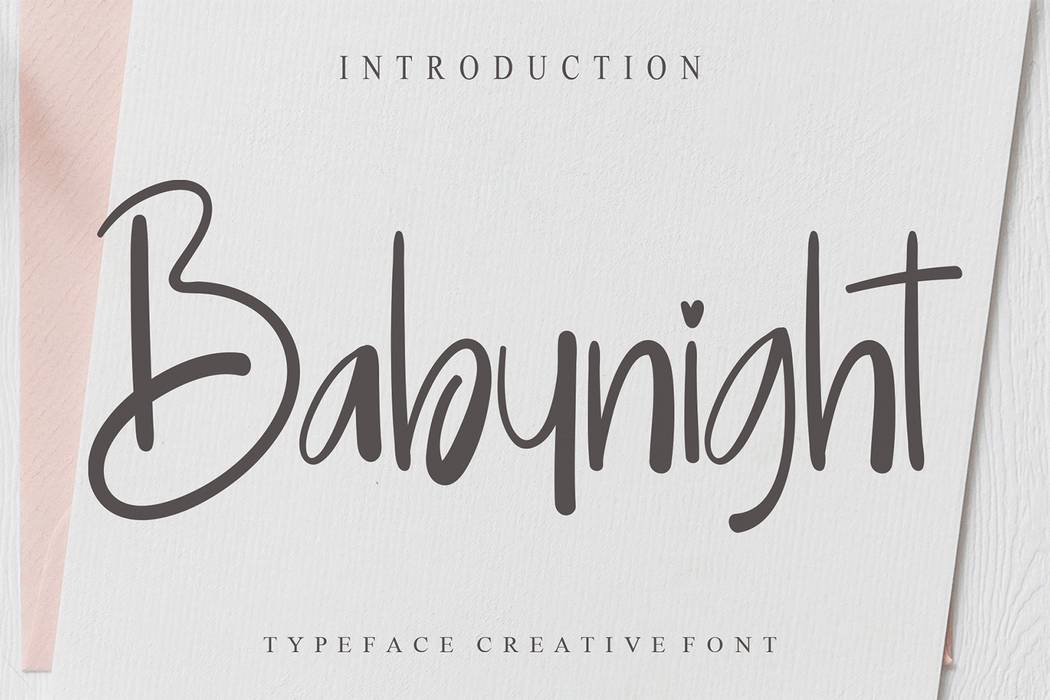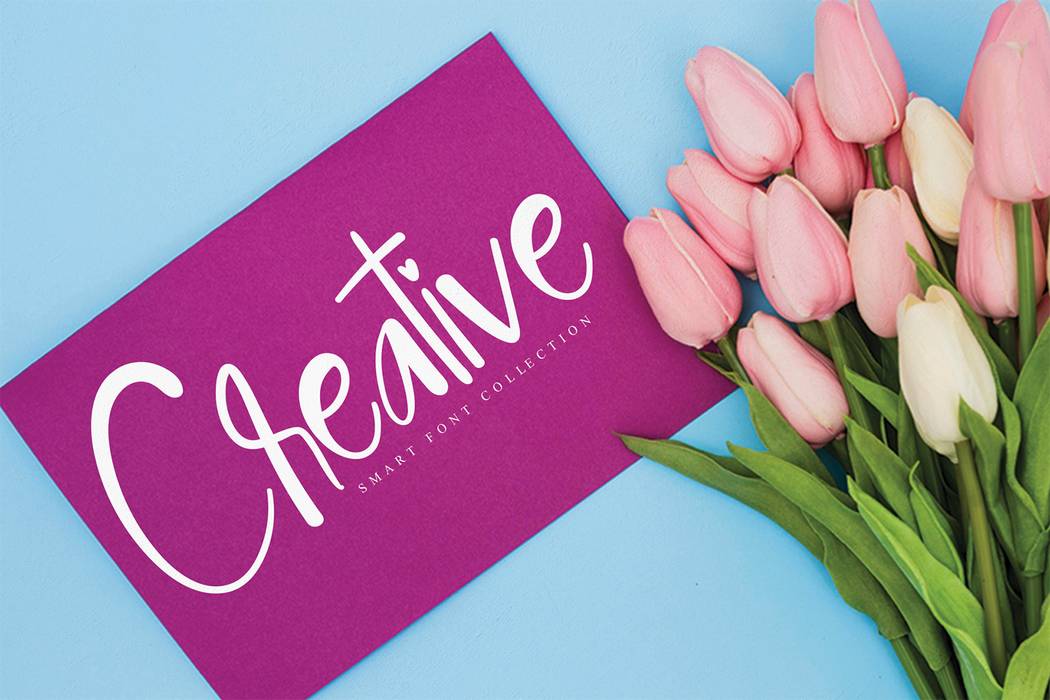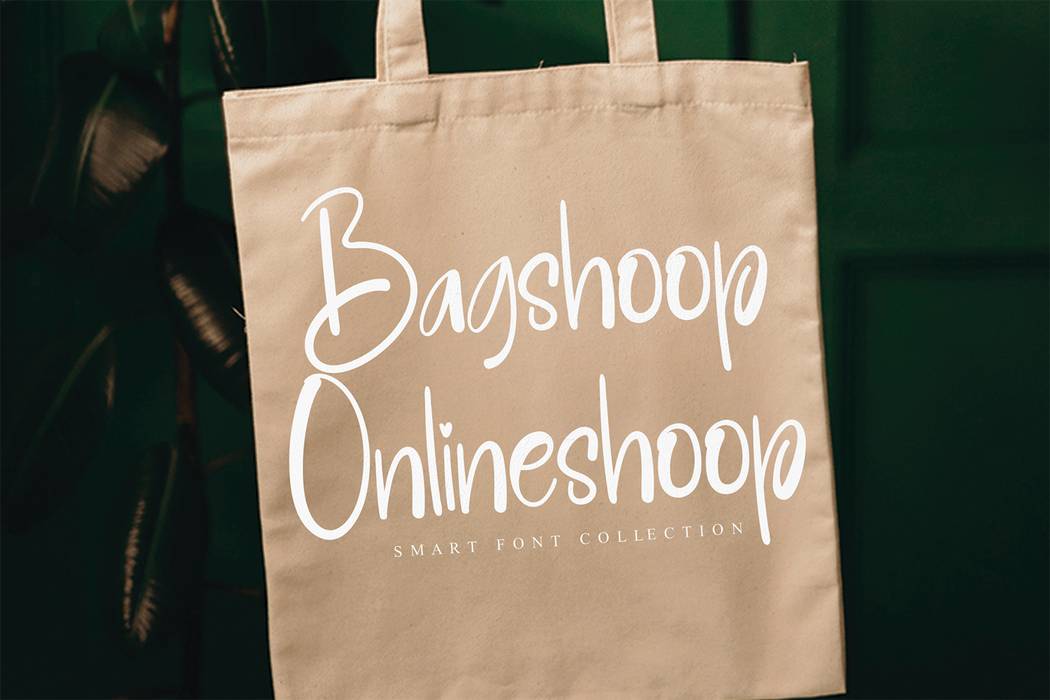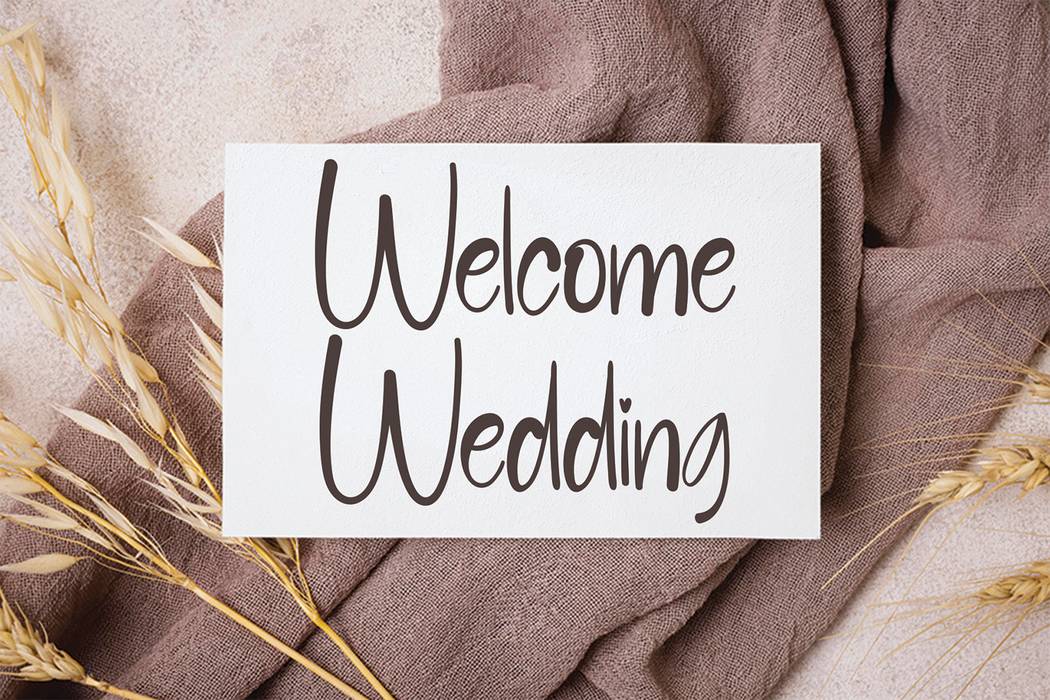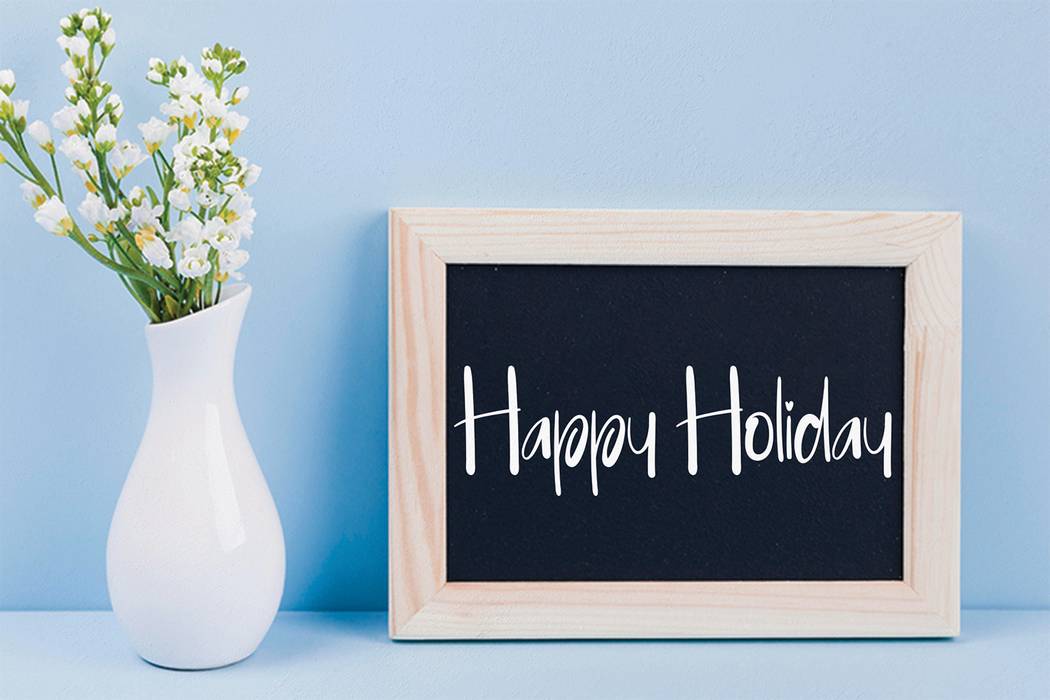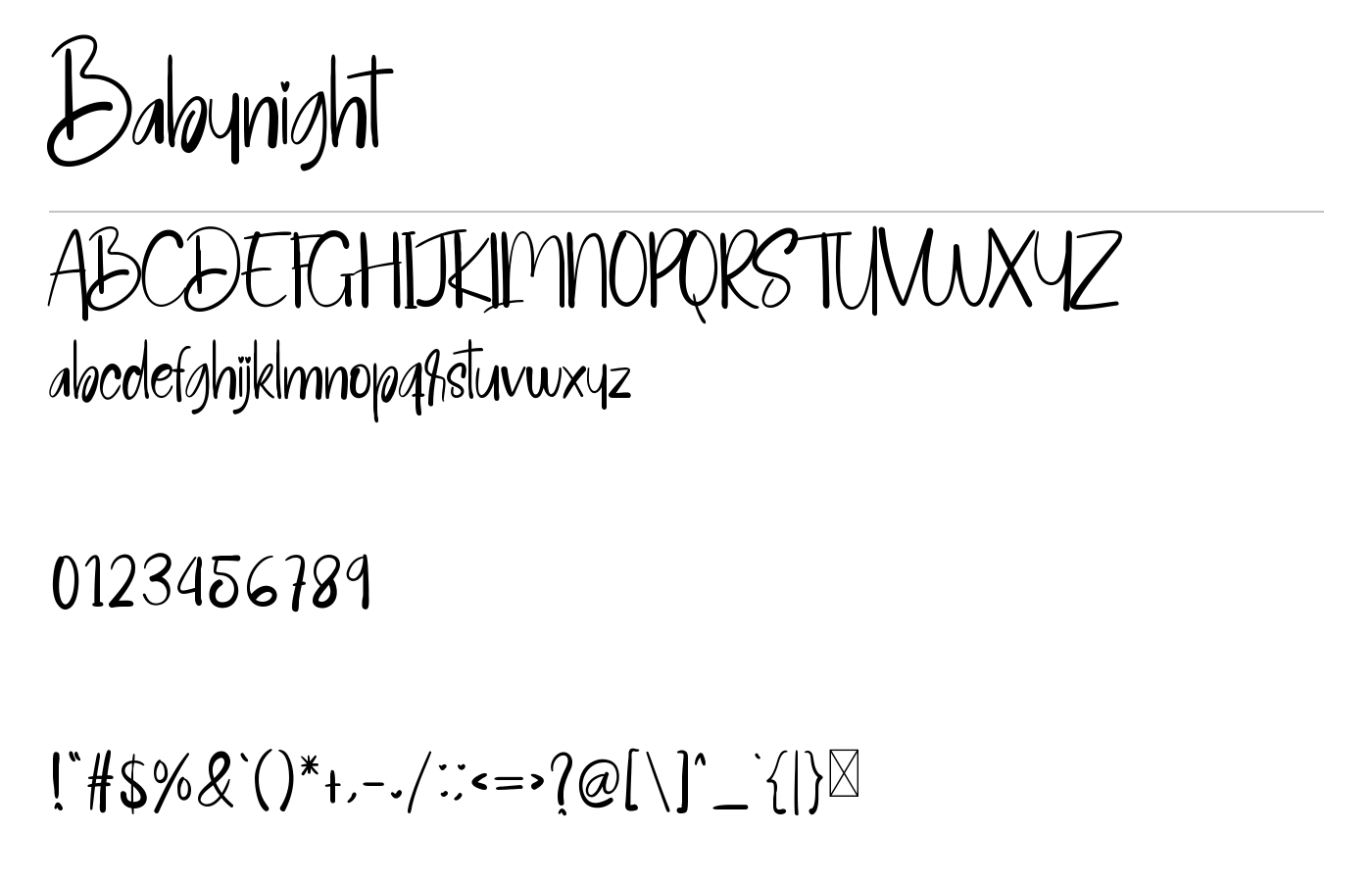
Babynight is a playful, handwritten script font with a casual and whimsical feel. Its tall, narrow letterforms feature uneven strokes and charming, quirky details like a heart-shaped dot on the "i," making it perfect for creative, youthful branding, invitations, and informal designs that seek a friendly and personal touch. This font works best in headlines or decorative text where its unique character can shine.
Babynight Font
About Babynight Font